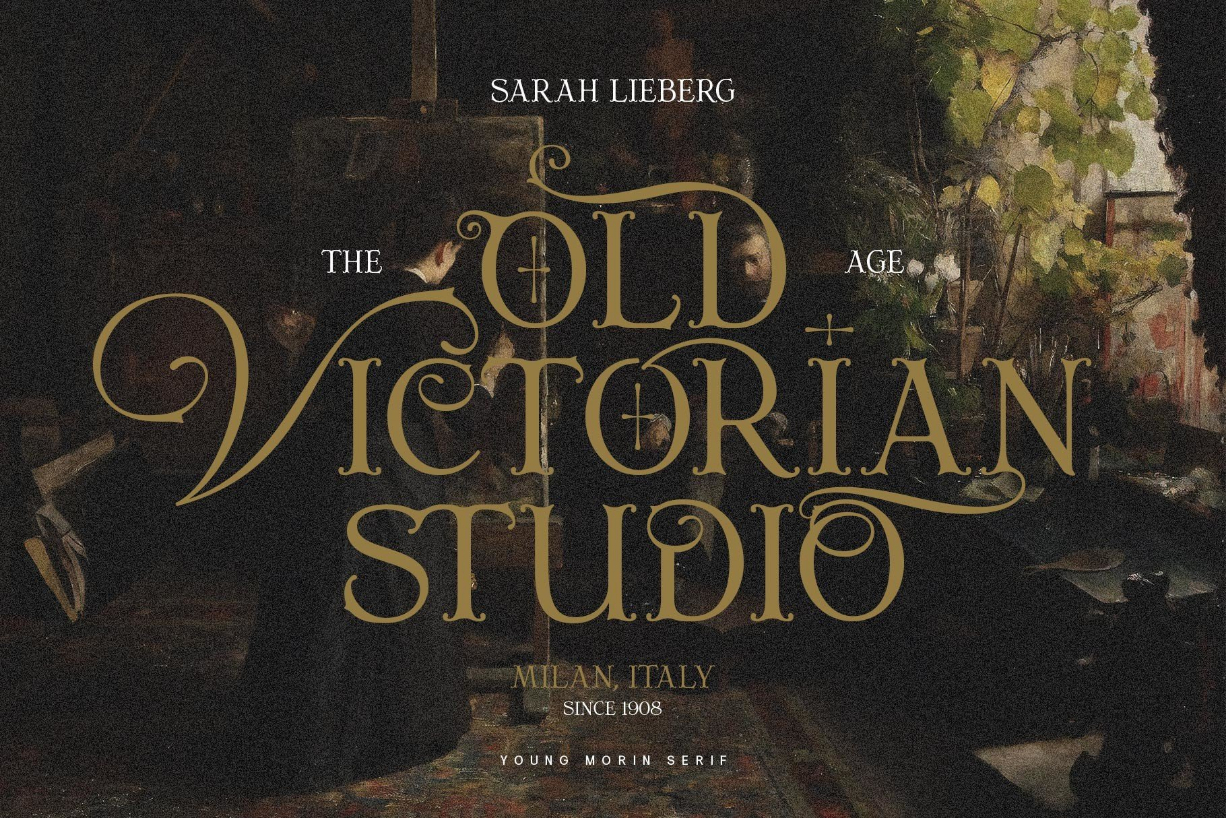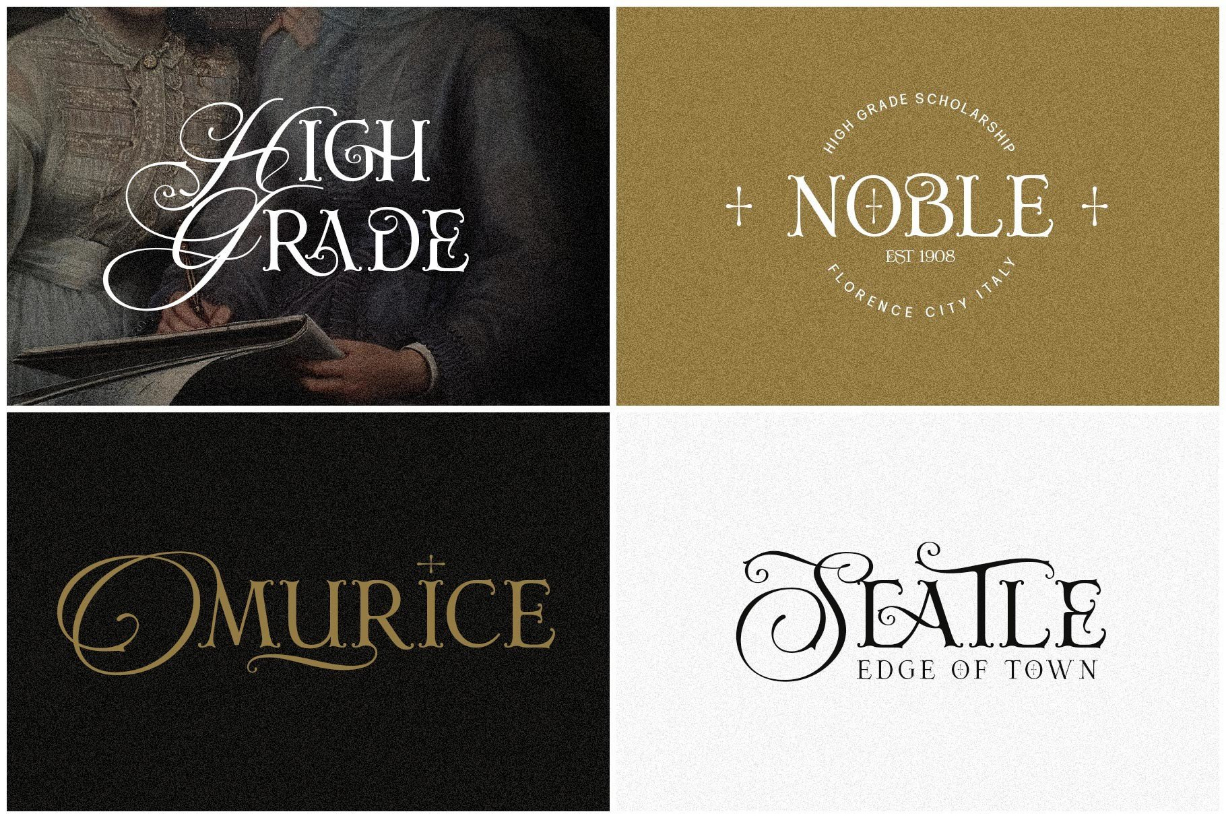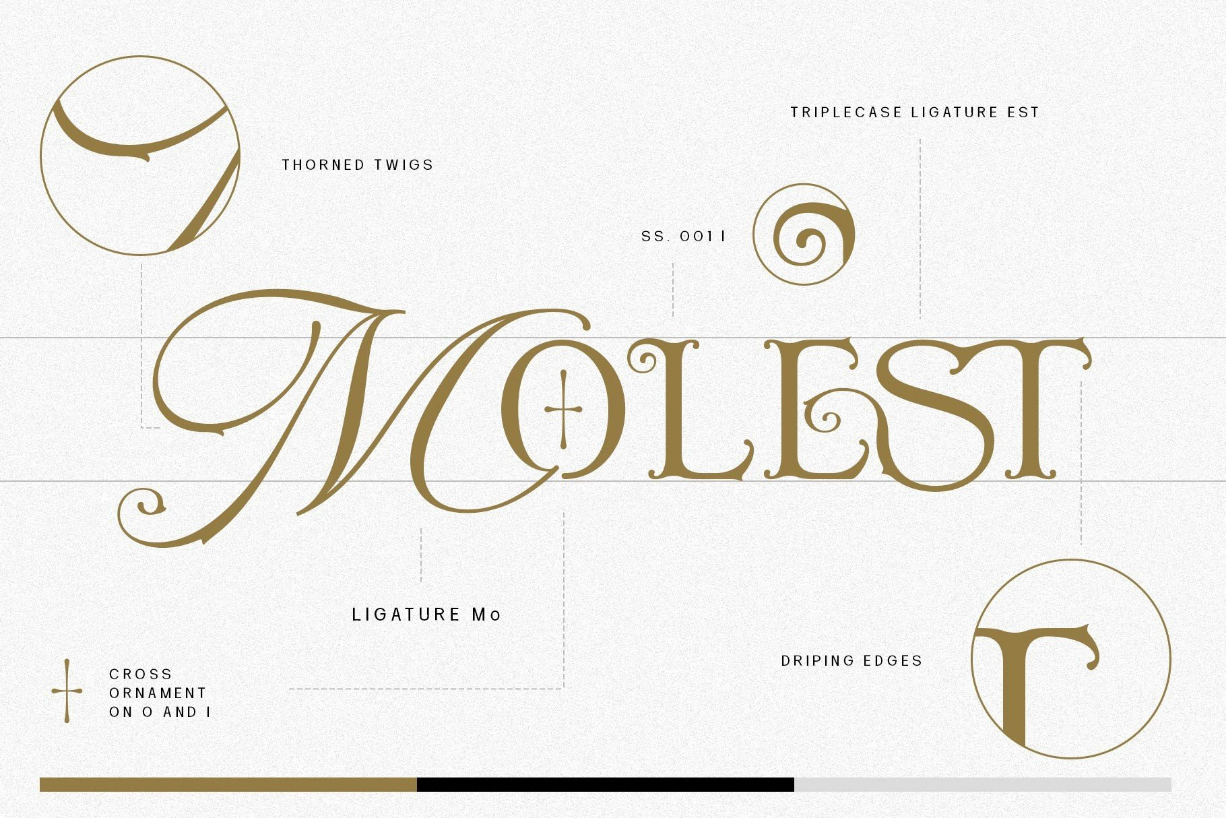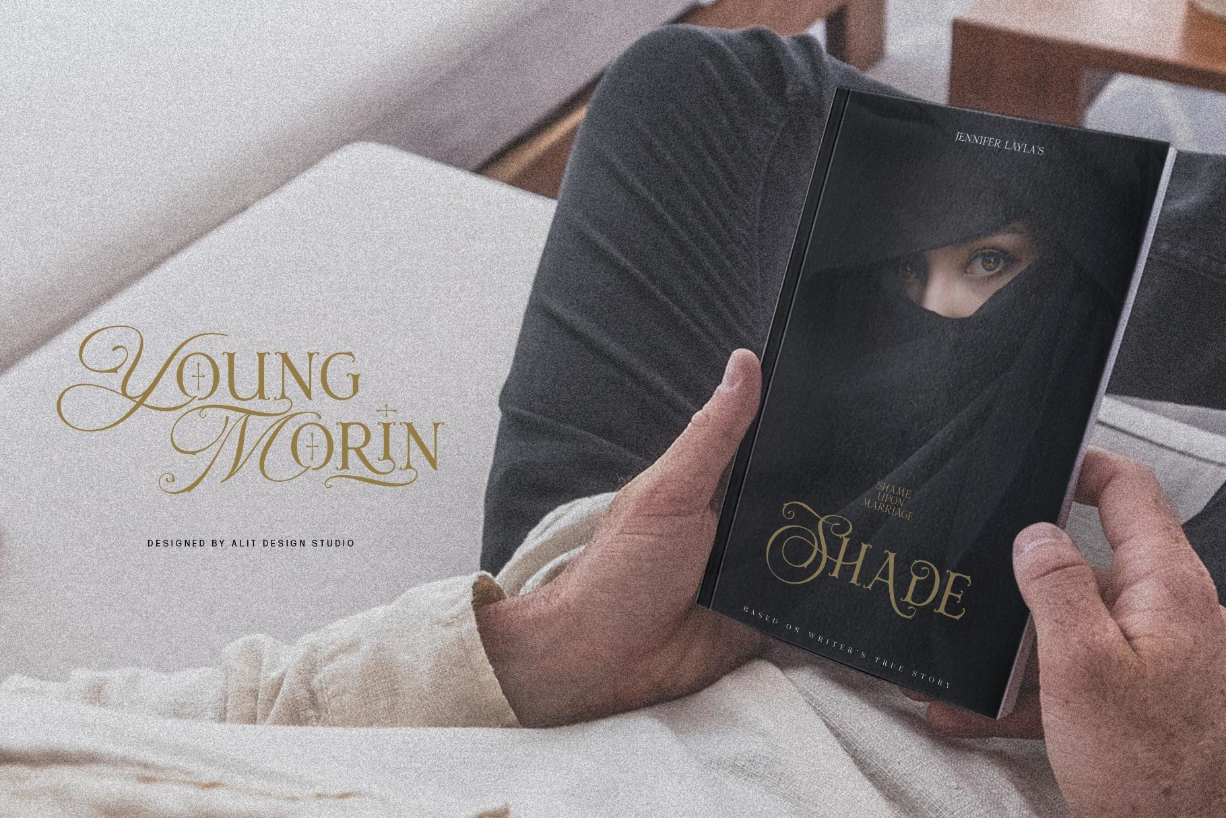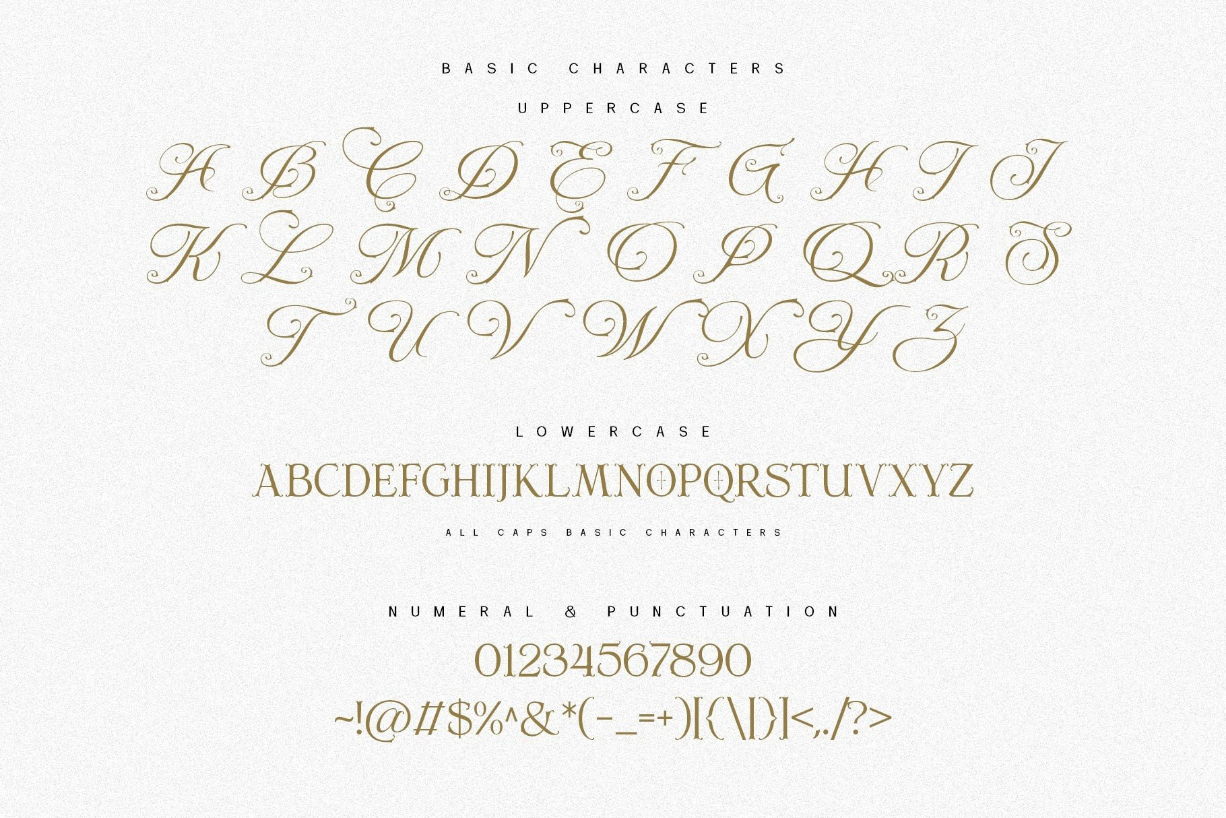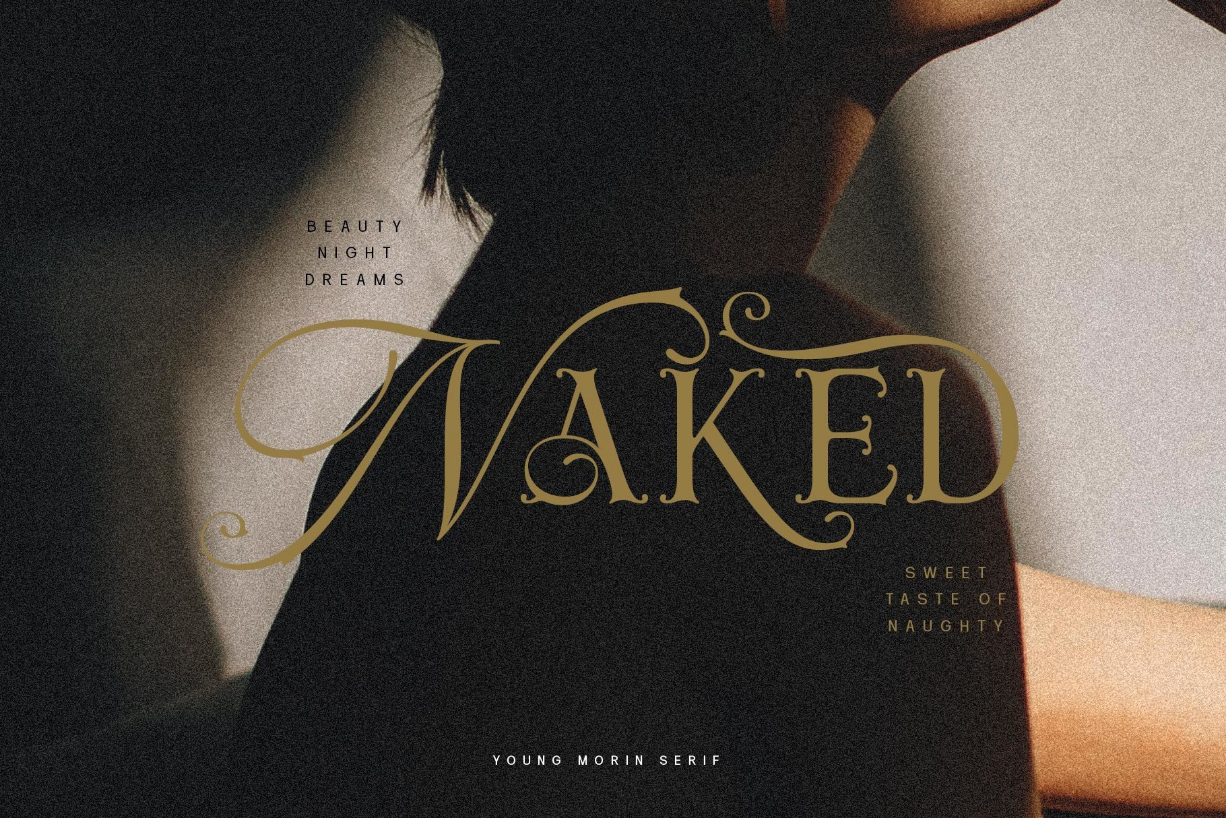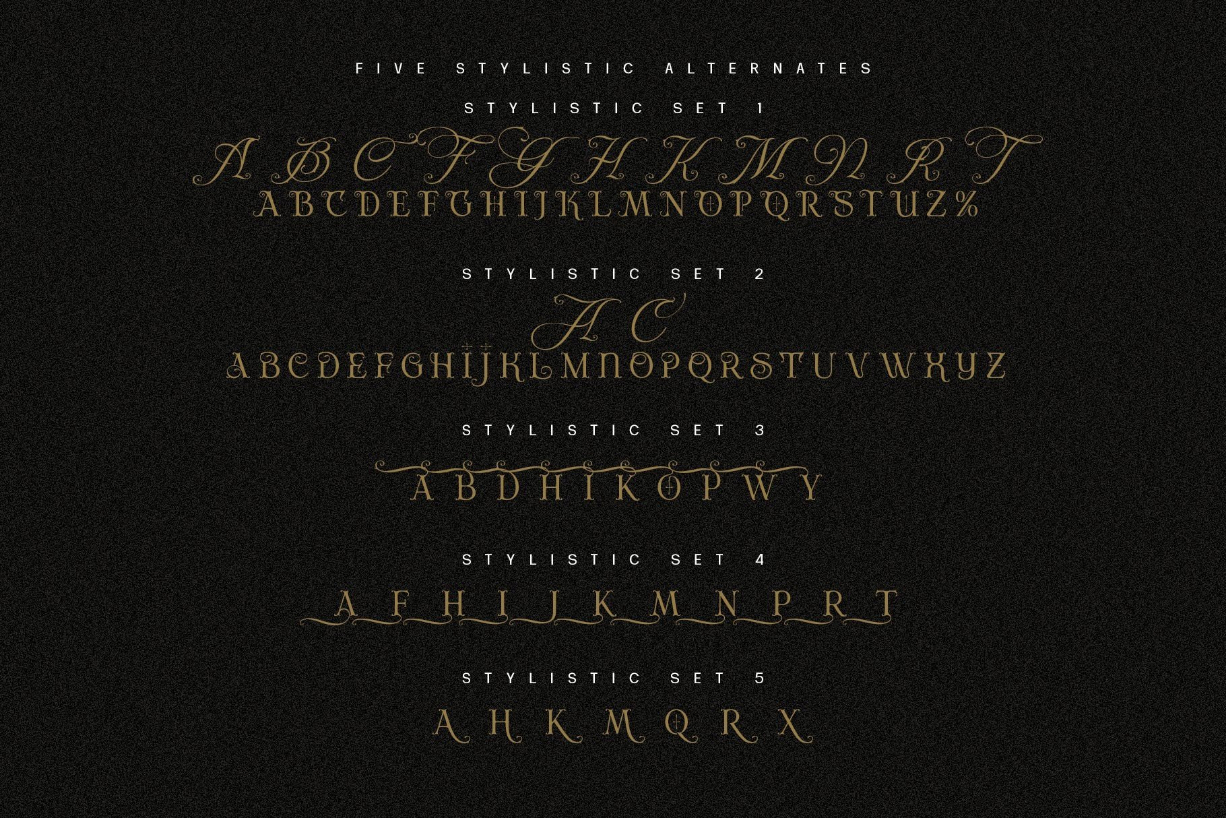
Young Morin Font
Young Morin is a stunning blackletter font designed by combining elegant script font with a classic serif font style. The Young Morin font is inspired by a classic roman design mixed with modern elements according to current trends. This bold classic concept will create a design that is frightening but still looks modern and elegant. The Young Morin font is perfect for the design of young people who dare to be different and unique from the current trending design concept.
Young Morin is perfect for magazine cover designs, brochures, flyers, Instagram ads, Canva Design, and other projects with unique, modern, and brave concepts. This font is PUA encoded, which means you can access all of the glyphs and swashes with ease!